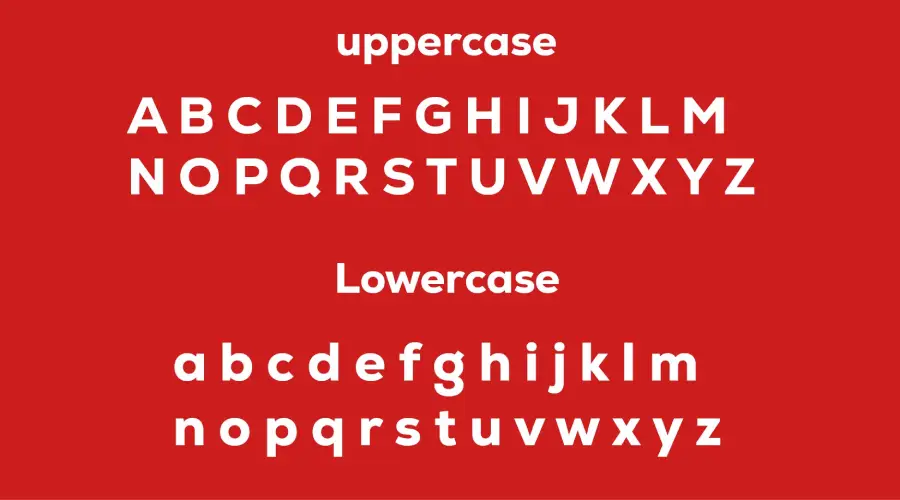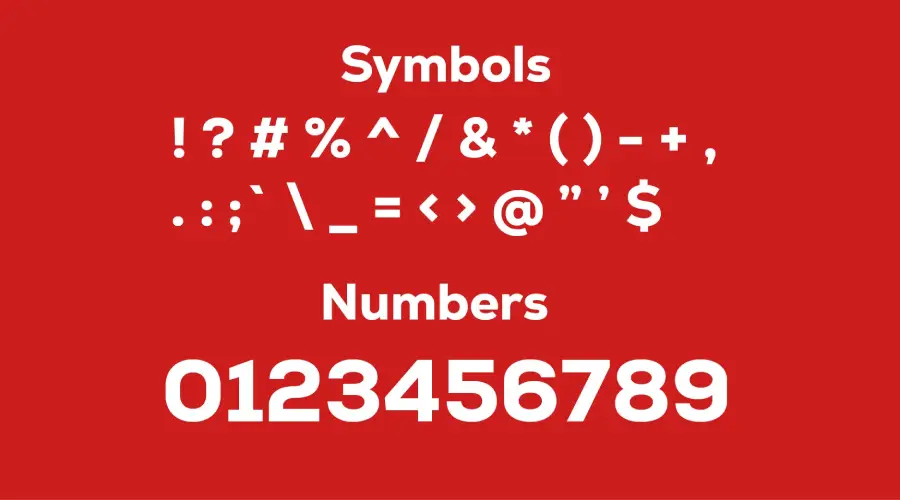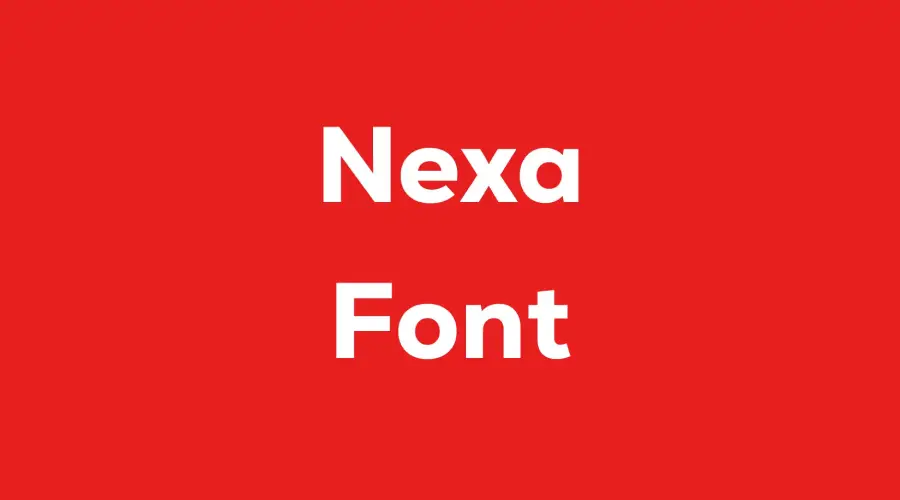
Nexa font is a modern sans-serif font family that’s versatile, elegant, and highly legible. Svetoslav Simov designed this font and Fontfabric type Foundry released it. This font is a geometric sans serif typeface that features clean and simple lines, sharp edges, and rounded corners. It is suitable for both web and print design projects.
Using the Font
Nexa’s versatility makes it a great choice for various design projects. It’s perfect for creating eye-catching logos, compelling headlines, and engaging text blocks. Whether you’re designing a poster, a logo, or a website, Nexa can add a professional and modern touch to your work. Many reputable institutions and digital media use this font. For example, it’s the prime typeface of the famous online platform Wikipedia.
Ans: Montserrat is the most similar Google font to Nexa.
Nexa font is an elegant and versatile typeface that can add a modern and minimalist touch to your designs. It is suitable for various purposes, such as branding, typography, or web design. You can use our Nexa generator to see what the font looks like in different platforms and contexts. You can also download the font for free and use it for your personal projects. So, what are you waiting for? Give it a try now!